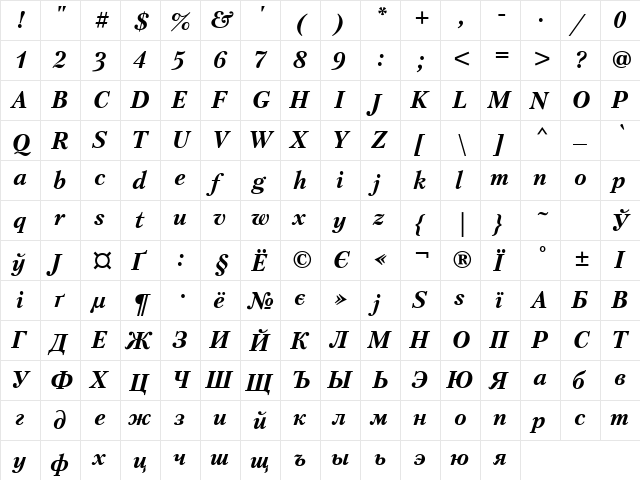
Petersburg BoldItalic Cyrillic
Design Context for Petersburg Typeface
Petersburg is a composed and adaptable typeface that performs quietly and consistently across a wide range of design contexts. Its italic angle brings a sense of urgency and motion to the letterforms. Its bold stroke weight gives it real presence on the page.
Pro Tip: Use Petersburg for emphasis, pull quotes, and subheadings where its slanted energy can add rhythm to the layout.